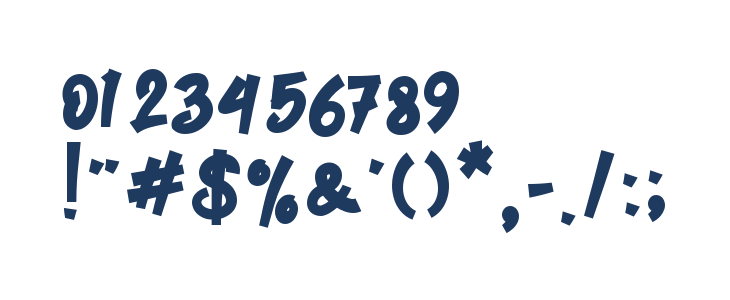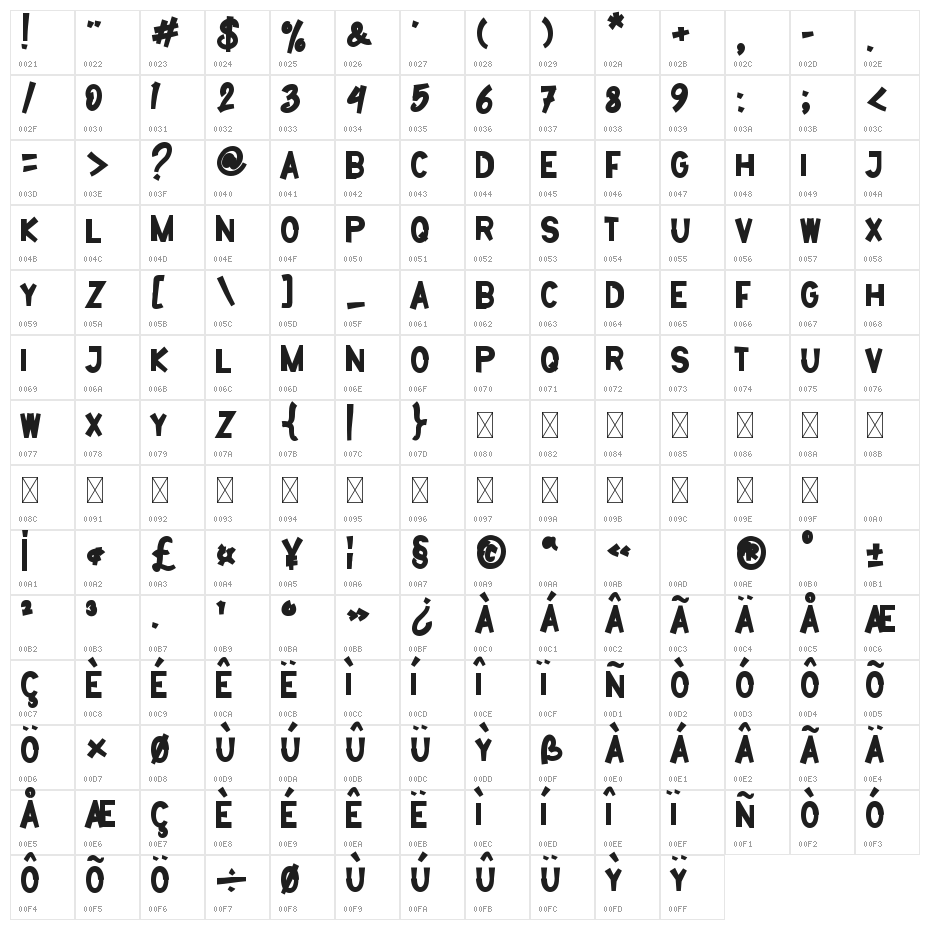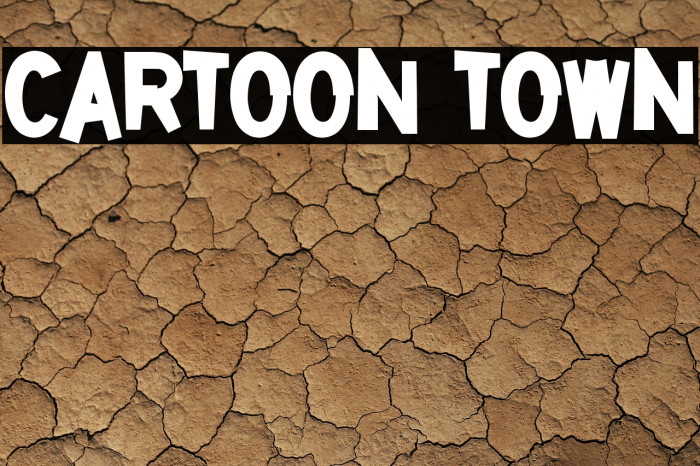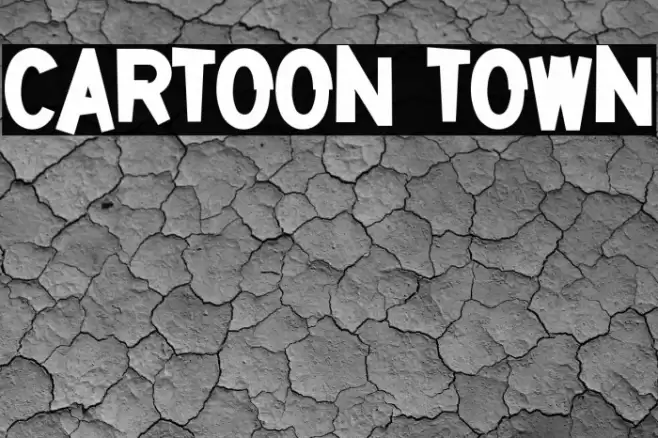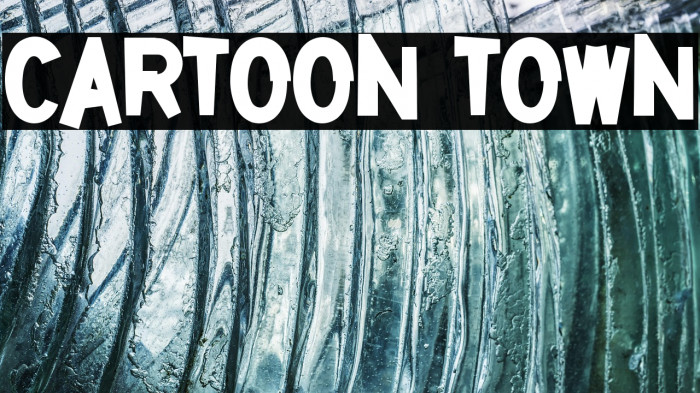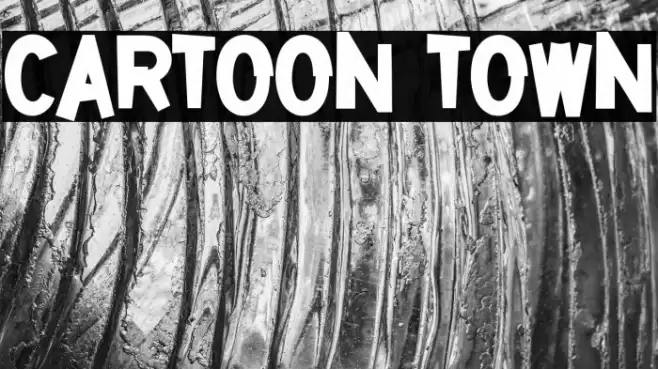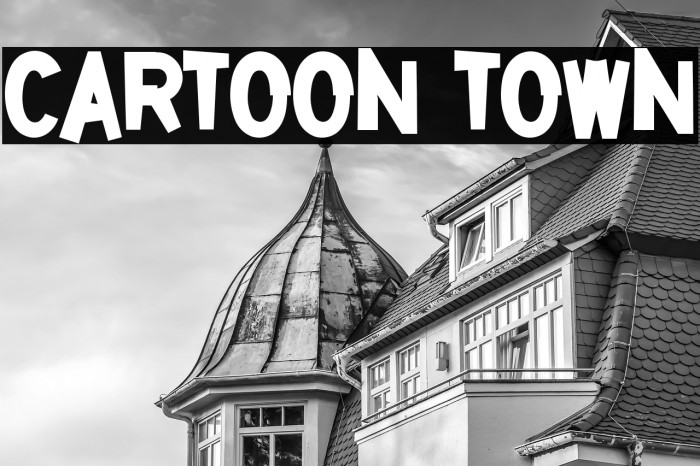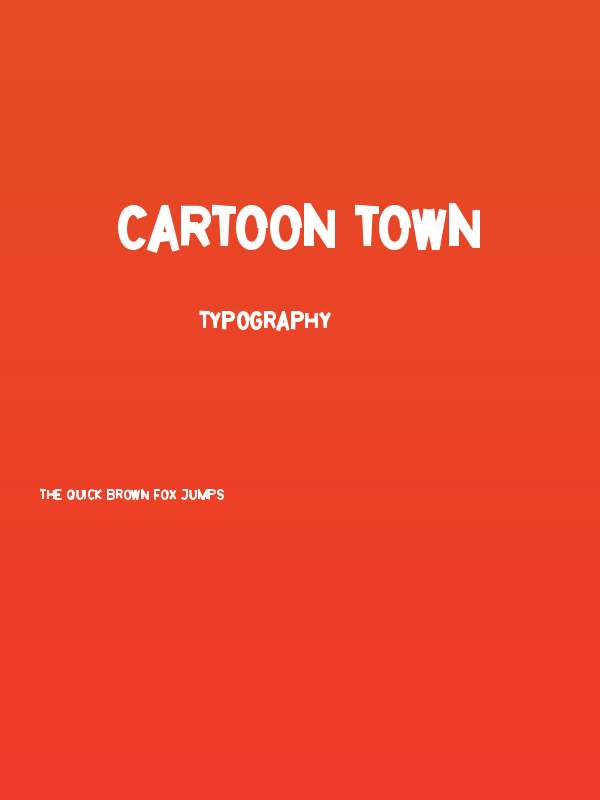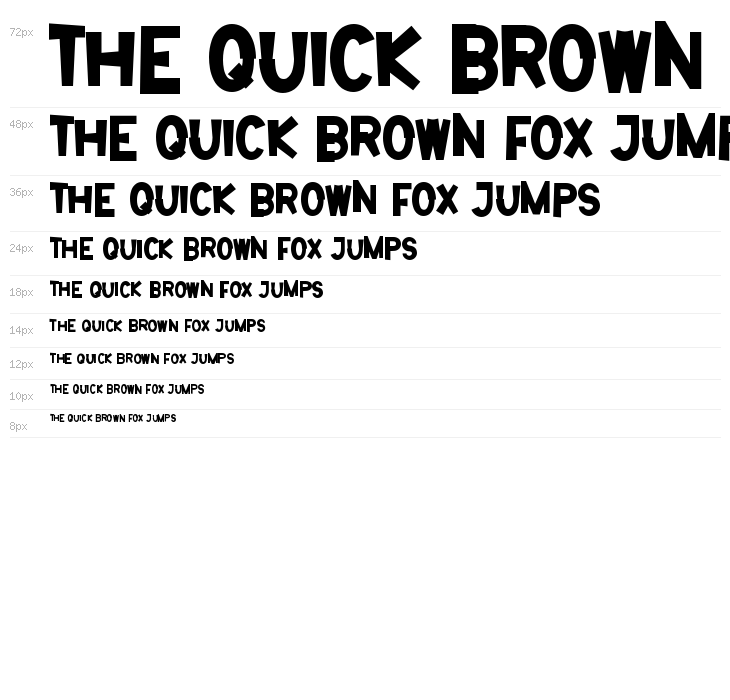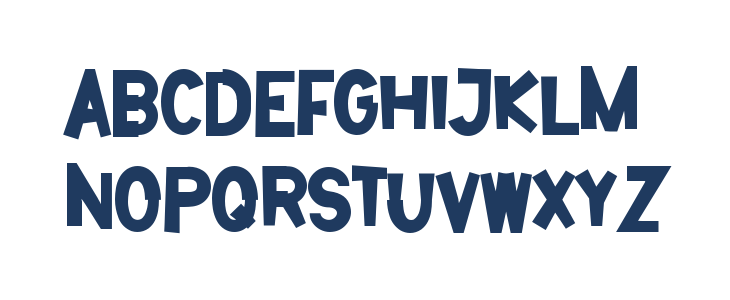
Cartoon Town Font
Cartoon Town Description
This playful and bold font features exaggerated, cartoon-like characters with a whimsical touch. The letters are slightly irregular, giving them a hand-drawn appearance that adds to their charm. The uppercase and lowercase letters maintain a consistent style, with thick strokes and rounded edges that enhance their friendly and approachable look. Numbers and special characters follow the same design principles, ensuring uniformity across all glyphs. This font is perfect for projects that require a fun and lively aesthetic, such as children's books, comic strips, or playful branding materials.
| Proposed Projects | Ideal for children's books, comic strips, playful branding, and fun posters. |